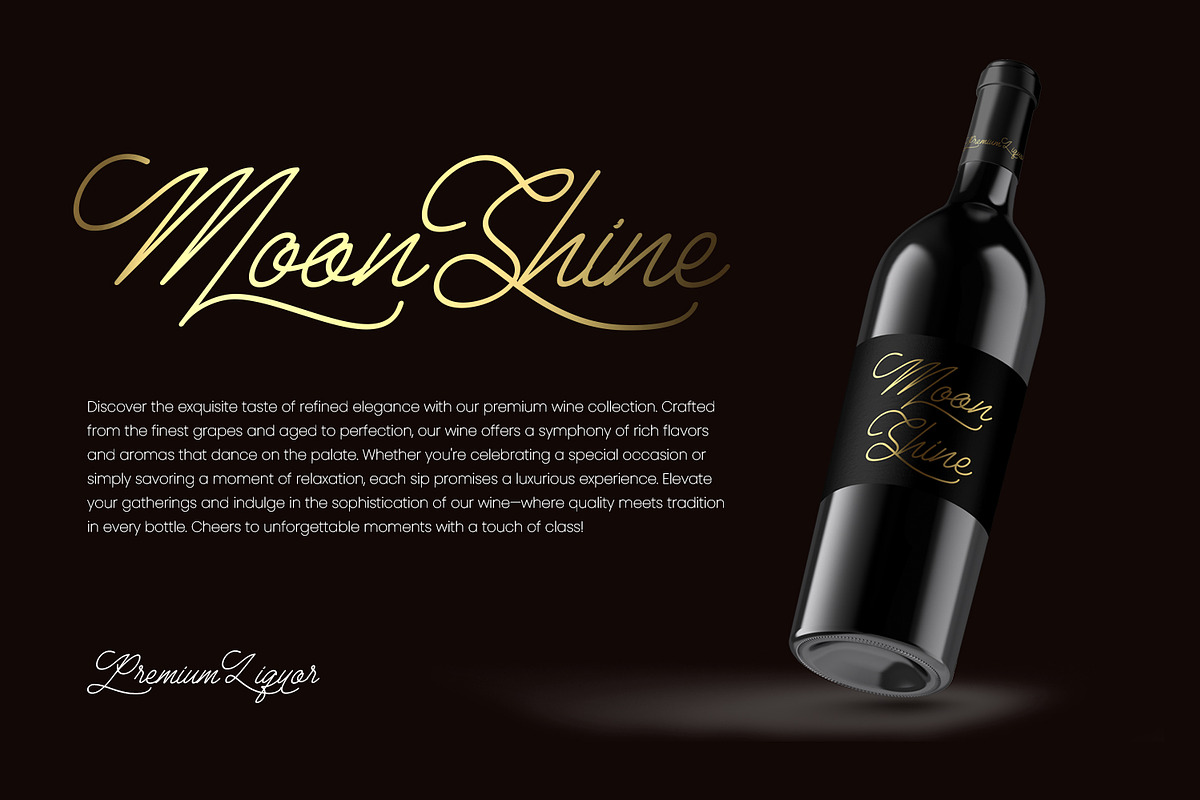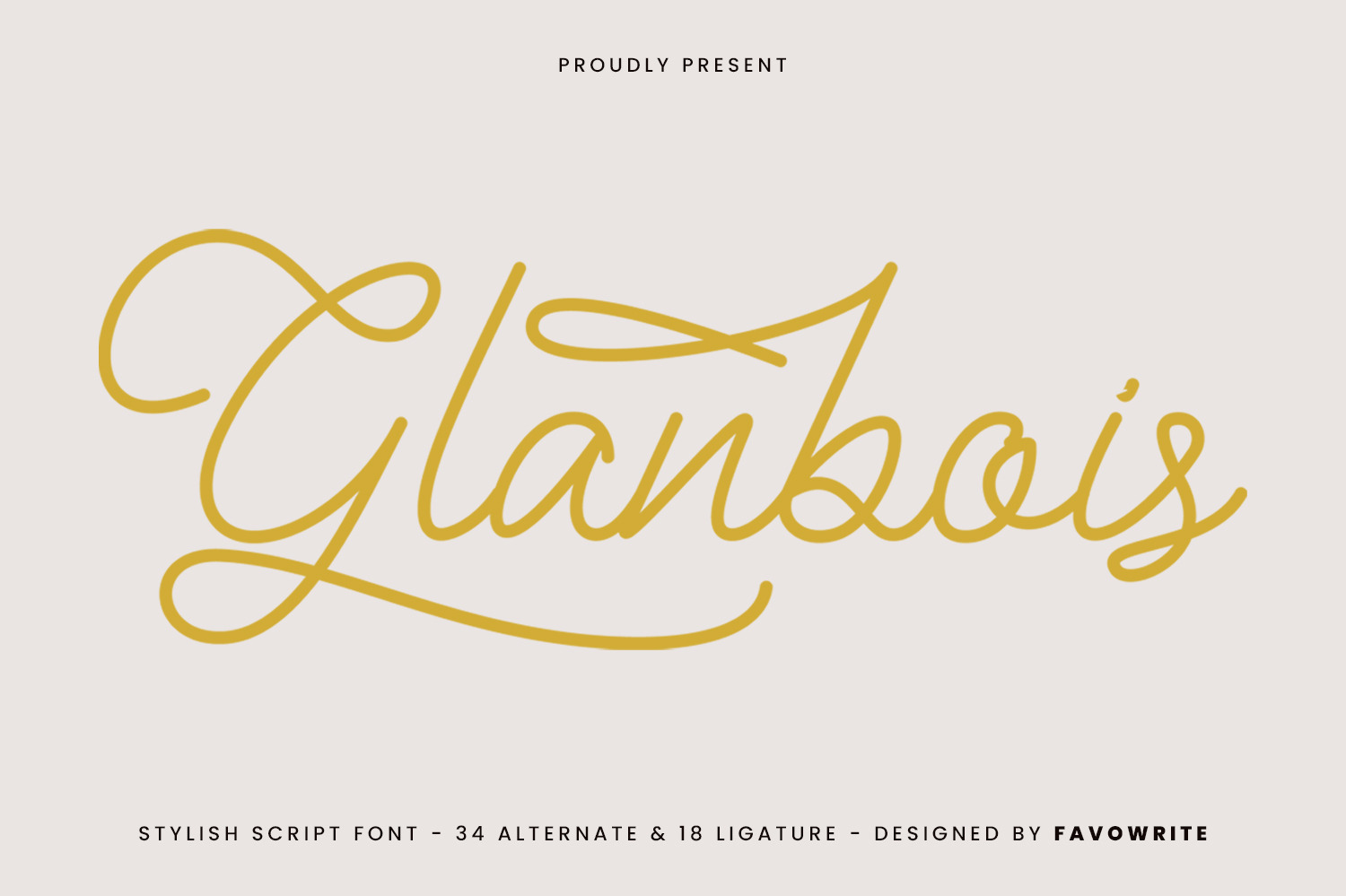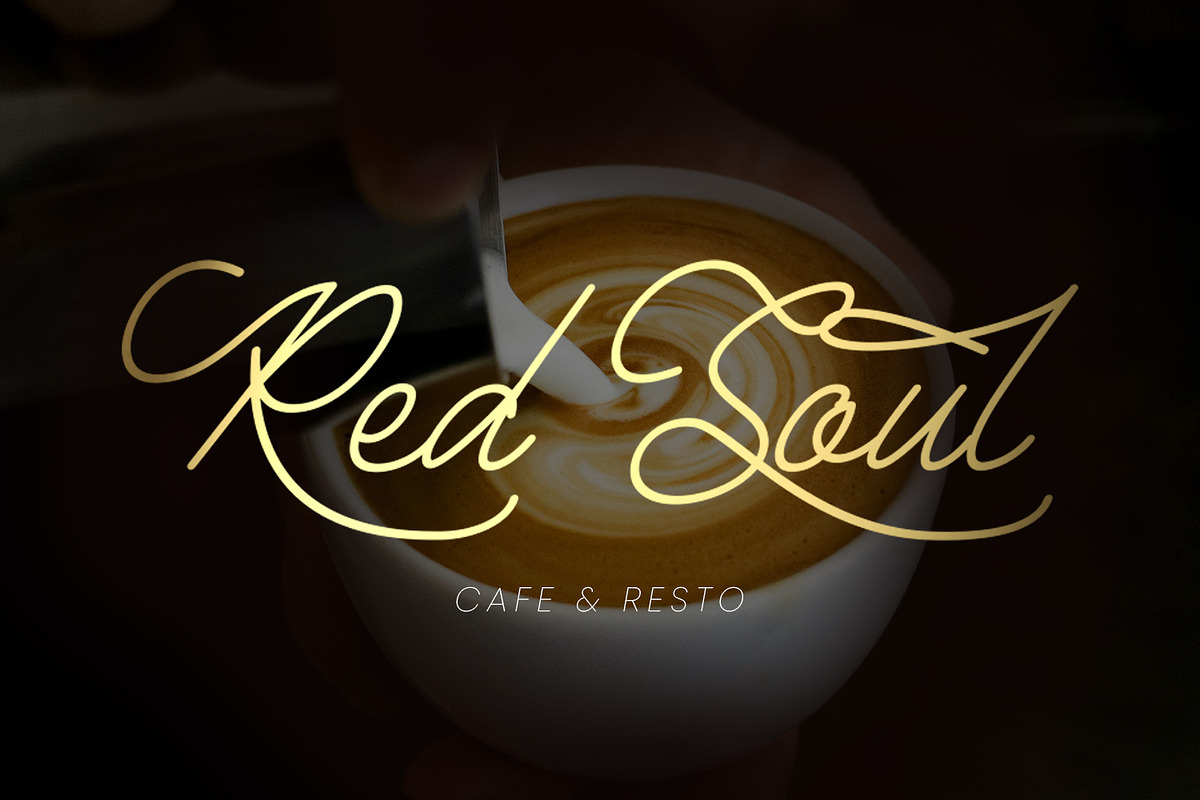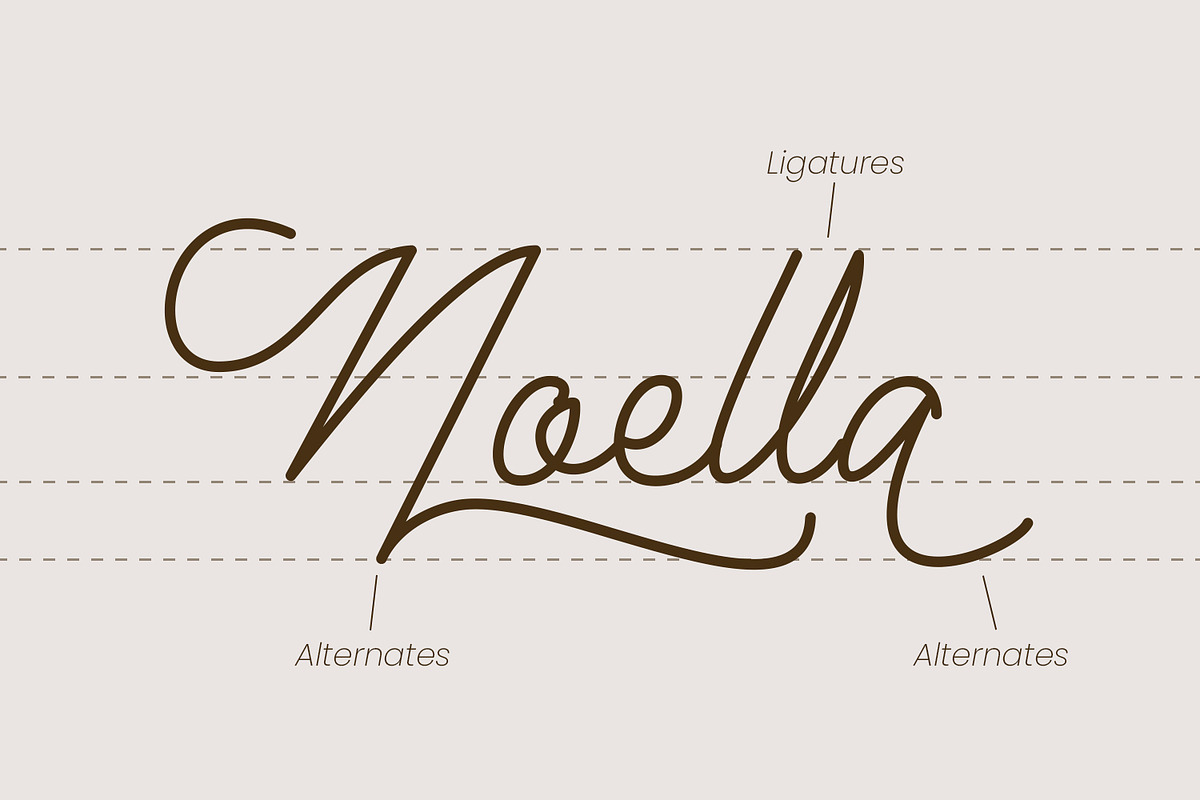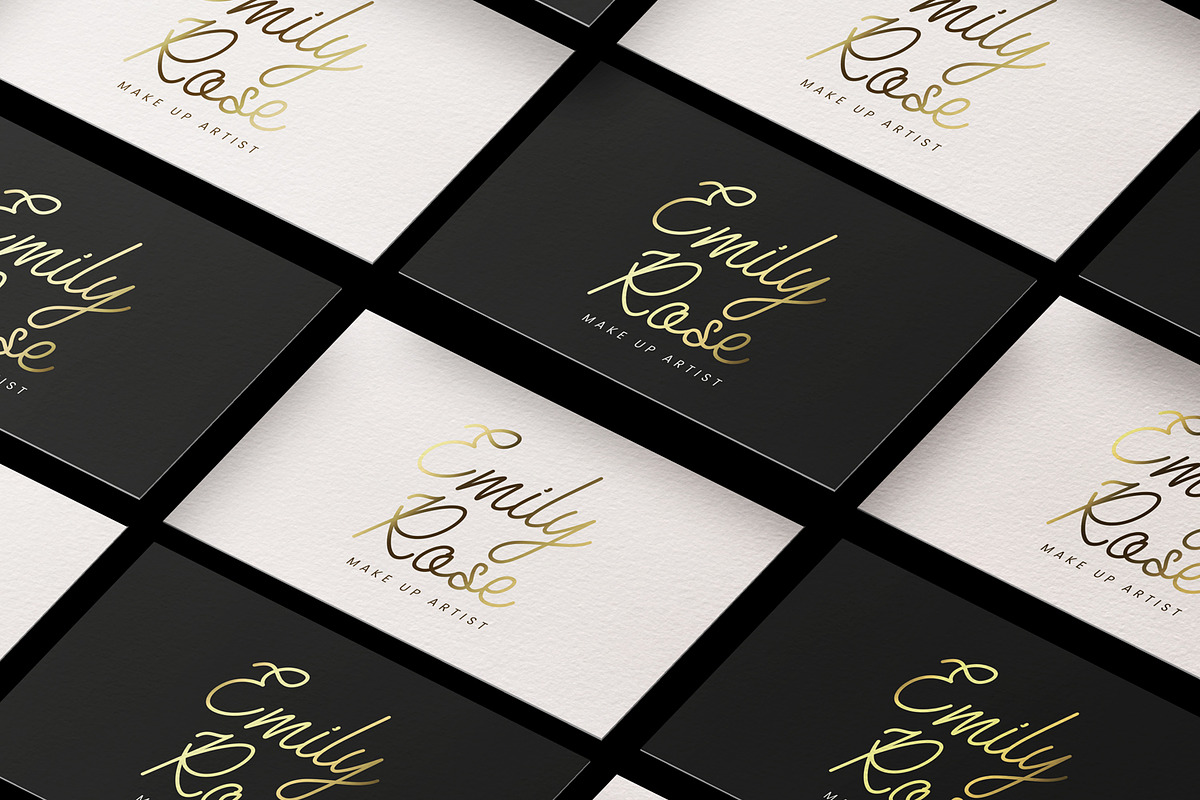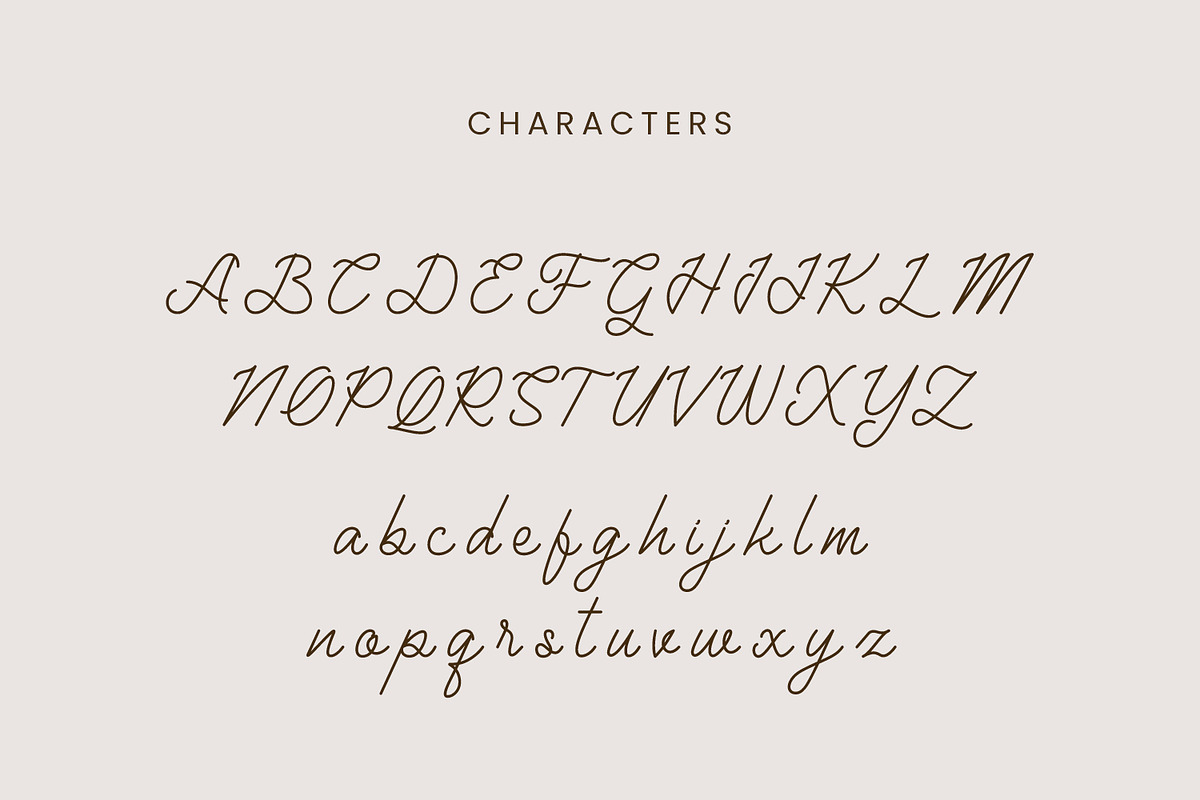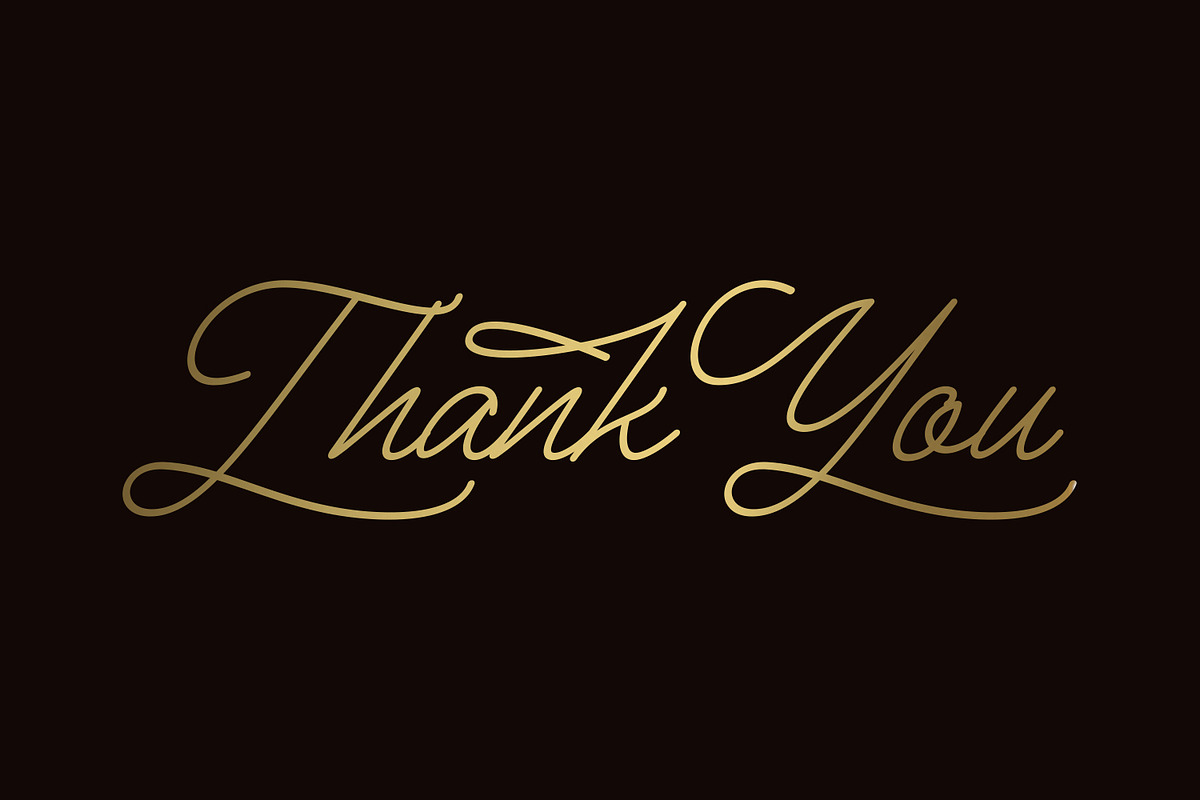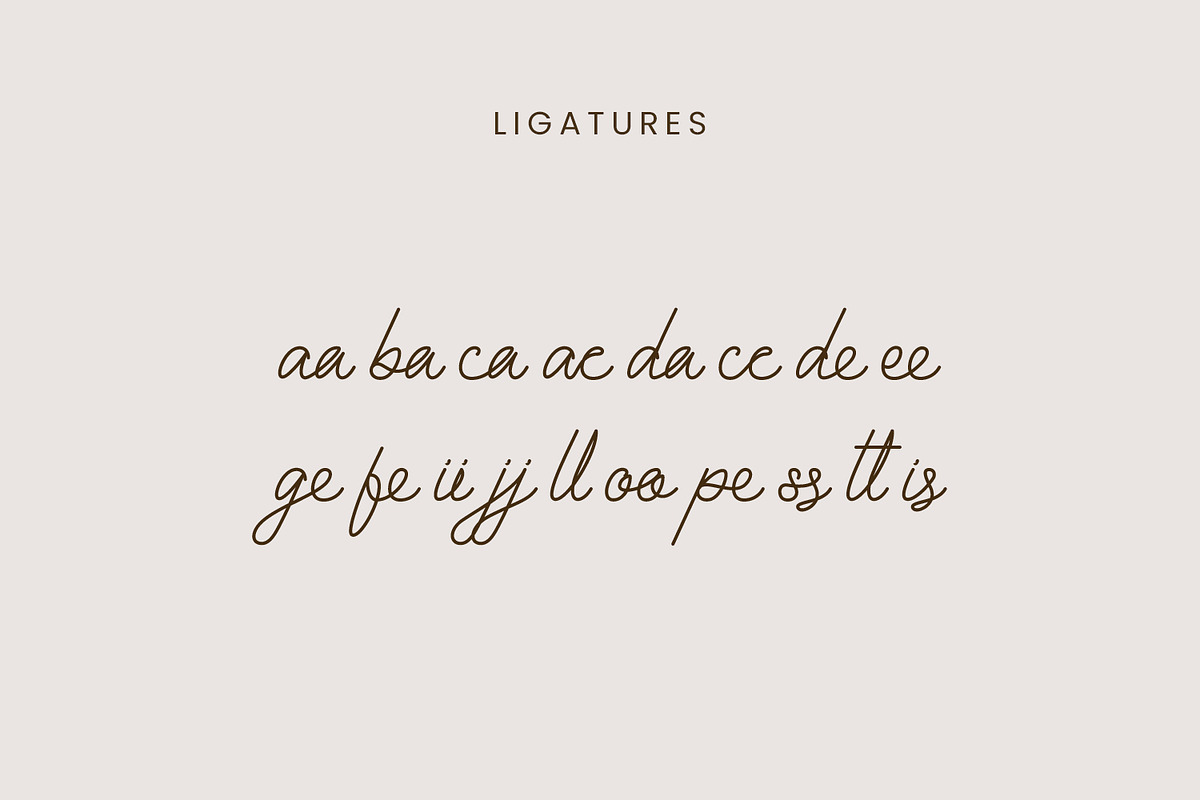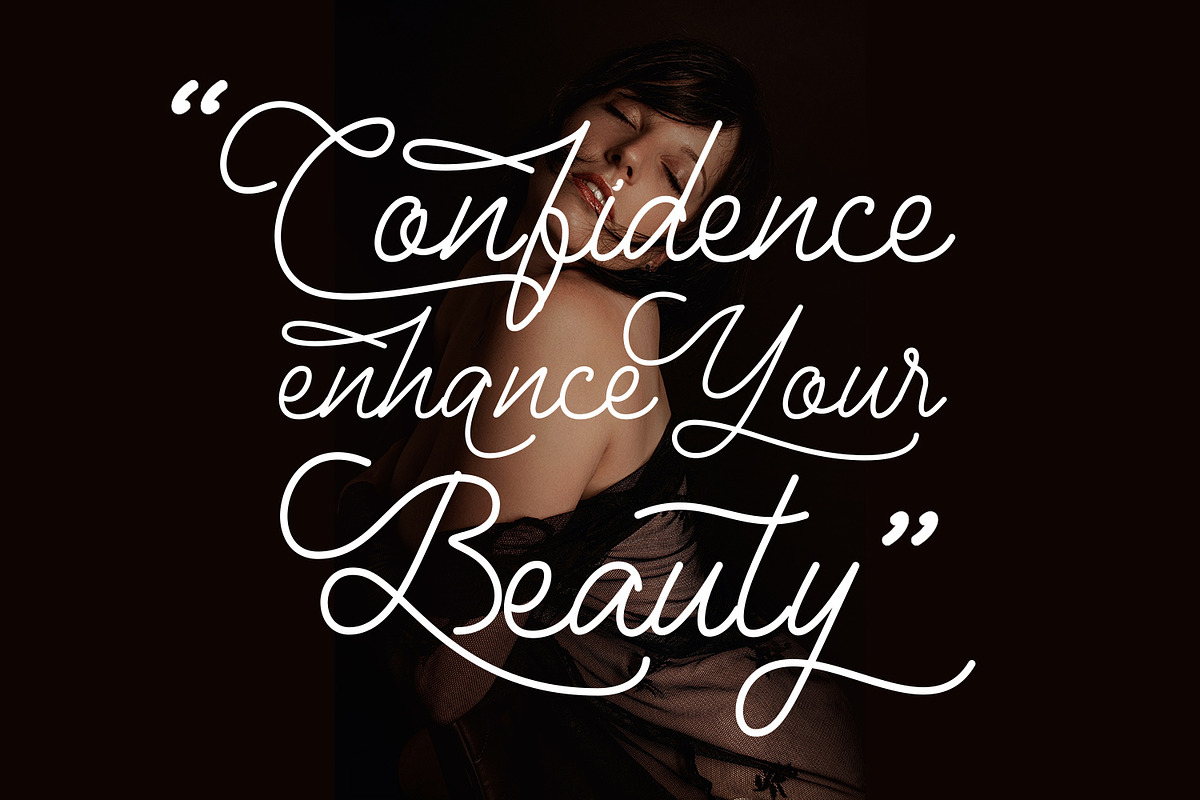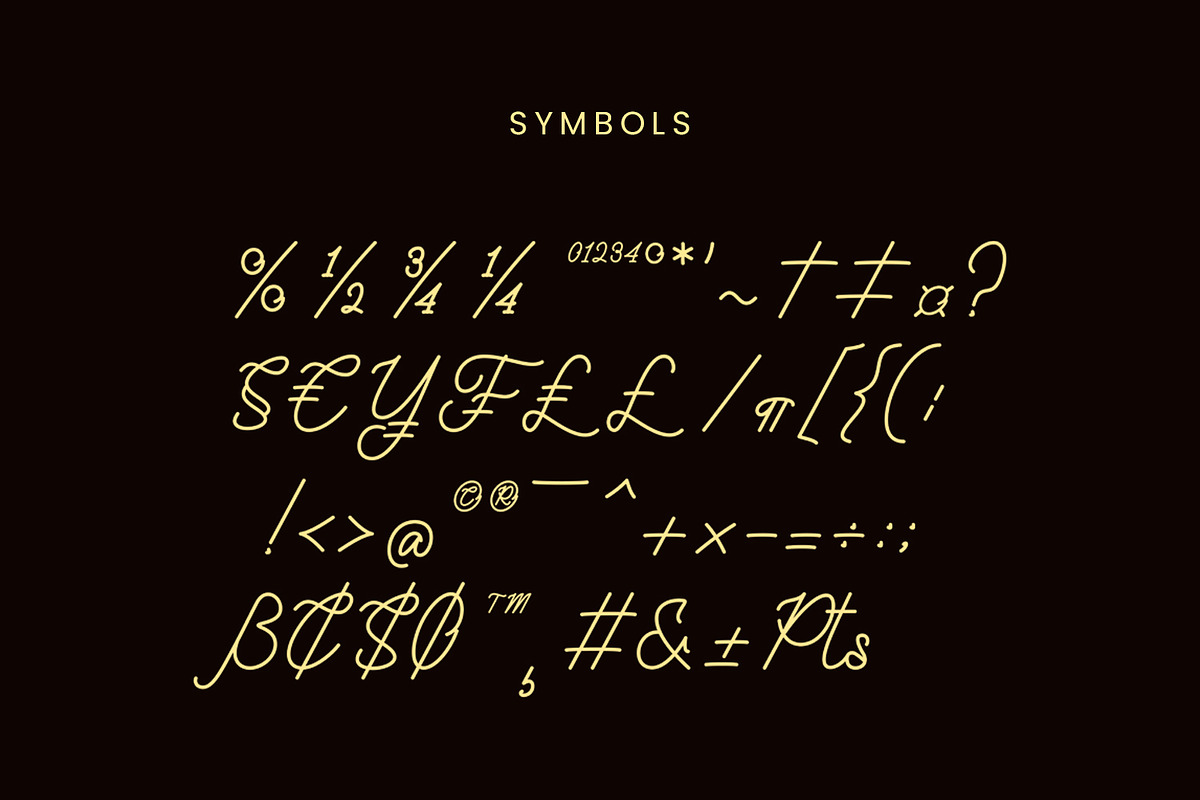
Glanbois - Monoline Script Font
Glanbois - Monoline Script Font, from Favowrite Studios, is a premium Font, perfect for any project that requires a distinctive, and premium feel.
- Ligature, Alternate & amp; Multilingu